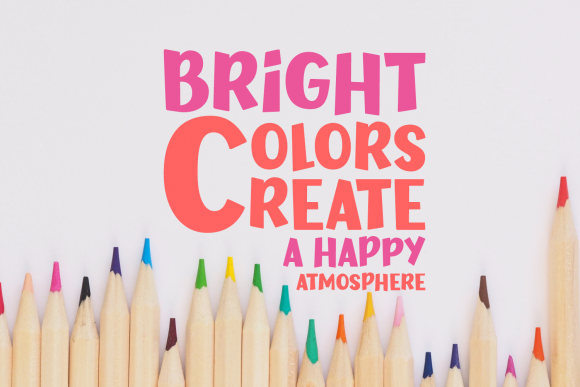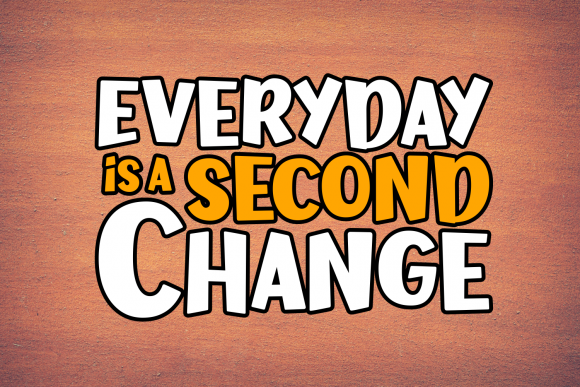
Introduction to Hora Font
Hora is an all-caps, display font with fun and cartoon-like characters that have a dancing baseline.
Use this font to create an eye-catching headline in your next design .
Key Features of Hora Font
Why Choose Hora Font?
Hora Font offers exceptional quality and versatility, making it a valuable addition to your design toolkit. Whether you’re creating for personal projects or commercial use, Hora Font delivers professional results.